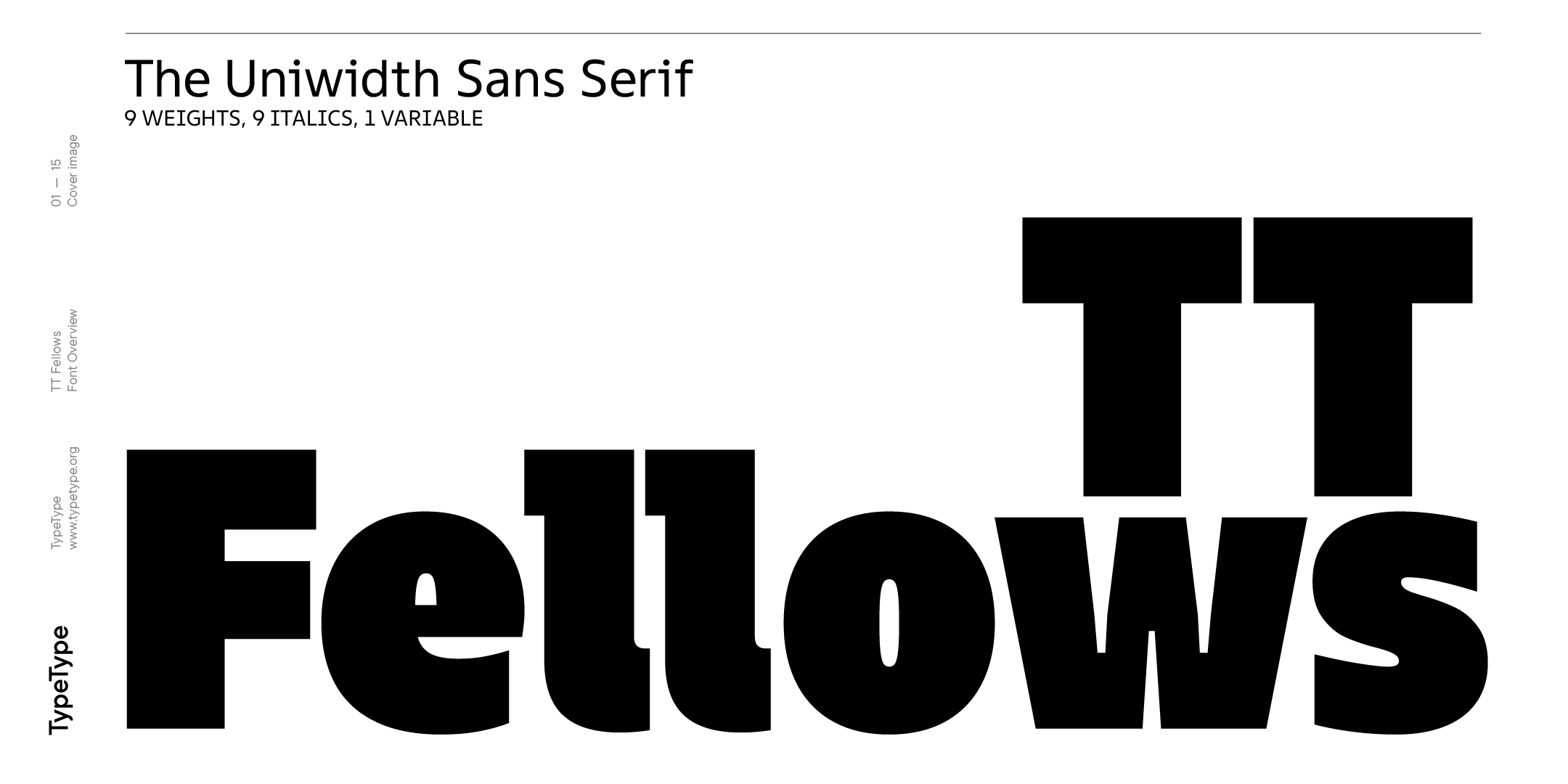
TT Fellows Font is perfect for modern corporate branding, professional presentations, contemporary magazine layouts, sleek website designs, business card typography, annual report designs, architectural firm materials, and sophisticated marketing campaigns that demand clarity and professionalism.
TT Fellows Font is exciting because it represents the pinnacle of contemporary type design with its perfectly balanced letterforms and exceptional legibility. The font combines geometric precision with humanist warmth, creating a distinctive character that feels both authoritative and approachable, making it ideal for brands that want to project competence while remaining accessible.
The TT Fellows Font family includes comprehensive weight options: Thin, Extra Light, Light, Regular, Medium, Semi Bold, Bold, Extra Bold, and Black, along with matching italic versions. Each weight maintains the font's signature clarity and professional appeal while providing designers with extensive flexibility for creating sophisticated typographic hierarchies.
This premium typeface elevates professional communication across all mediums and applications. Whether you're designing corporate identities, editorial layouts, or digital interfaces, TT Fellows Font Free Download delivers unmatched versatility and contemporary sophistication. The font's meticulously crafted letterforms ensure optimal readability at any size, from large headlines to small body text. Designers value its ability to convey trustworthiness, innovation, and professional excellence across diverse industries. The extensive character set includes multilingual support and OpenType features that enhance typographic possibilities. With its clean aesthetic and timeless appeal, TT Fellows Font transforms any project into a statement of quality and professionalism that resonates with discerning audiences who appreciate refined design and clear communication in today's competitive marketplace.